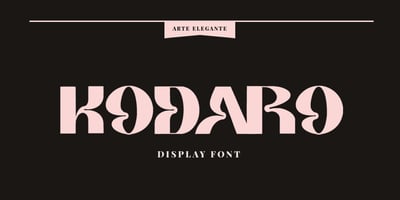
Kodaro
Kodaro font
Kodaro Font Family was designed by Candra Hamdani and published by Vultype Co. Kodaro contains 1 styles and family package options. Kodaro font is an unique and quirky display typeface with unique curves and a dreamy flow. It loops and swoops in a delicate dance that is never boring. Use this dainty serif as a memorable logotype or header and pair it with something contrasting and clean. ( My suggestions: Futura/Lato/Montserrat )